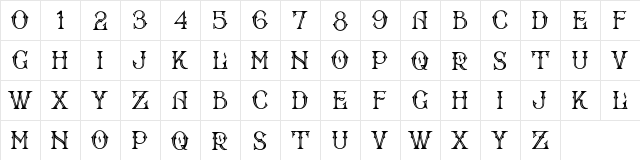
Bradford Inline
| Style | Inline |
| Foundry | Winston Type Co. |
| Designer | Sandi Dez |
Design Context for Bradford Typeface
Bradford brings ornamental detail and strong personality to headlines and identities, where visual impact matters more than quiet functionality.
Font Pairing: Pair with a clean neutral sans-serif for body copy to let Bradford's character lead without overwhelming the composition.
Pro Tip: Use Bradford exclusively at display sizes — it was designed to be seen, not read at length. Let a neutral companion handle body copy.